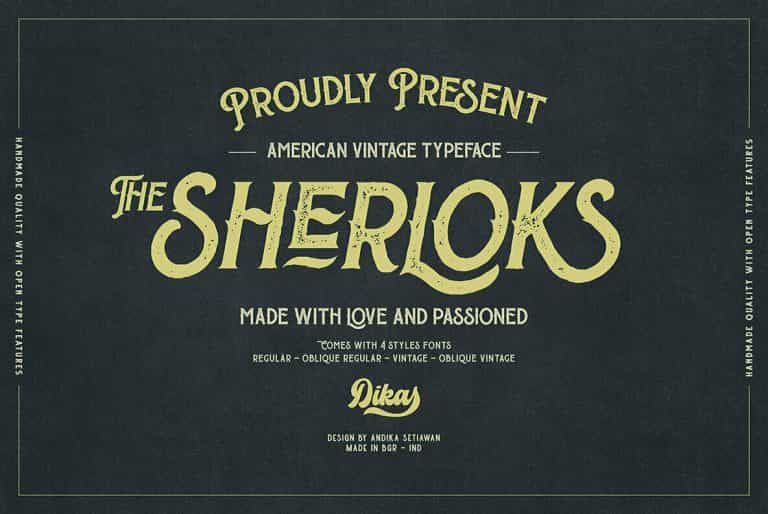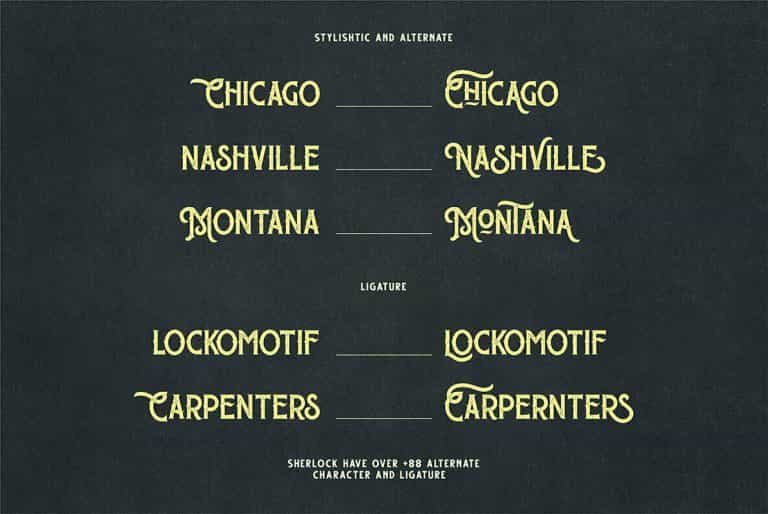
Discover The Sherloks Typeface, part of the Serif Display Vintage collection—a versatile and unique font perfect for adding a personal touch to your projects. Download it for free and enjoy crafting designs with style, from invitations to social media posts. This font is available exclusively for personal use, giving you the freedom to create without limits. Unlock your creativity with The Sherloks Typeface today!
Sherloks Serif Vintage Typography contains four varieties of the font that are regular, oblique, regular vintage, and oblique vintage with handwritten characters and Open Type. It is perfect for generating retro styles for logos, product packaging, invitations, quotes, and T-shirt labels and so on.